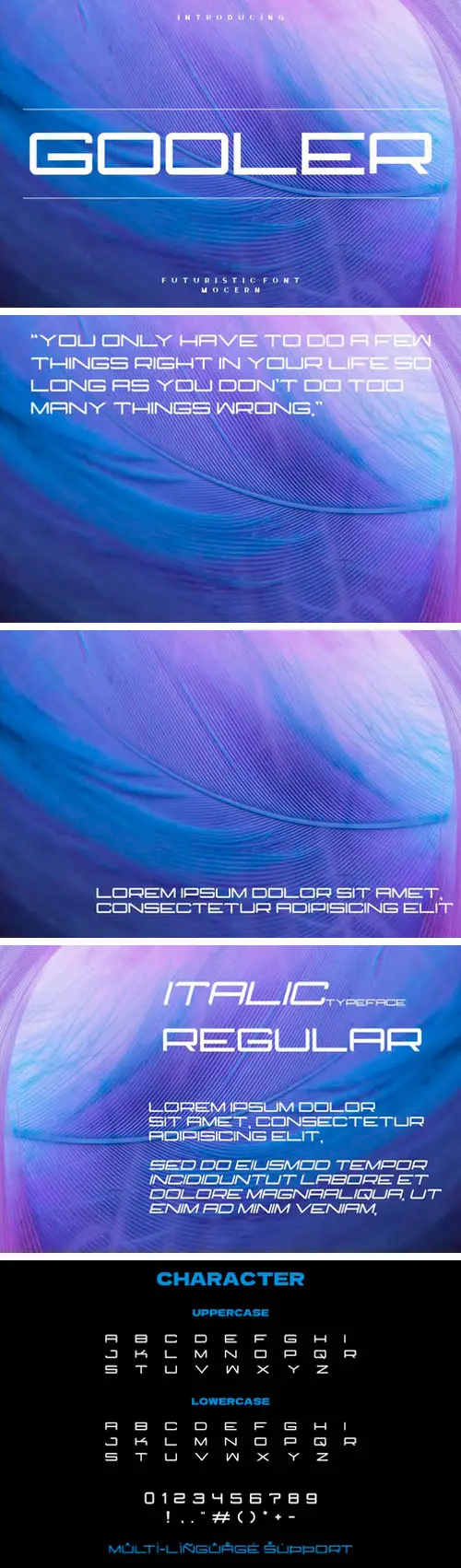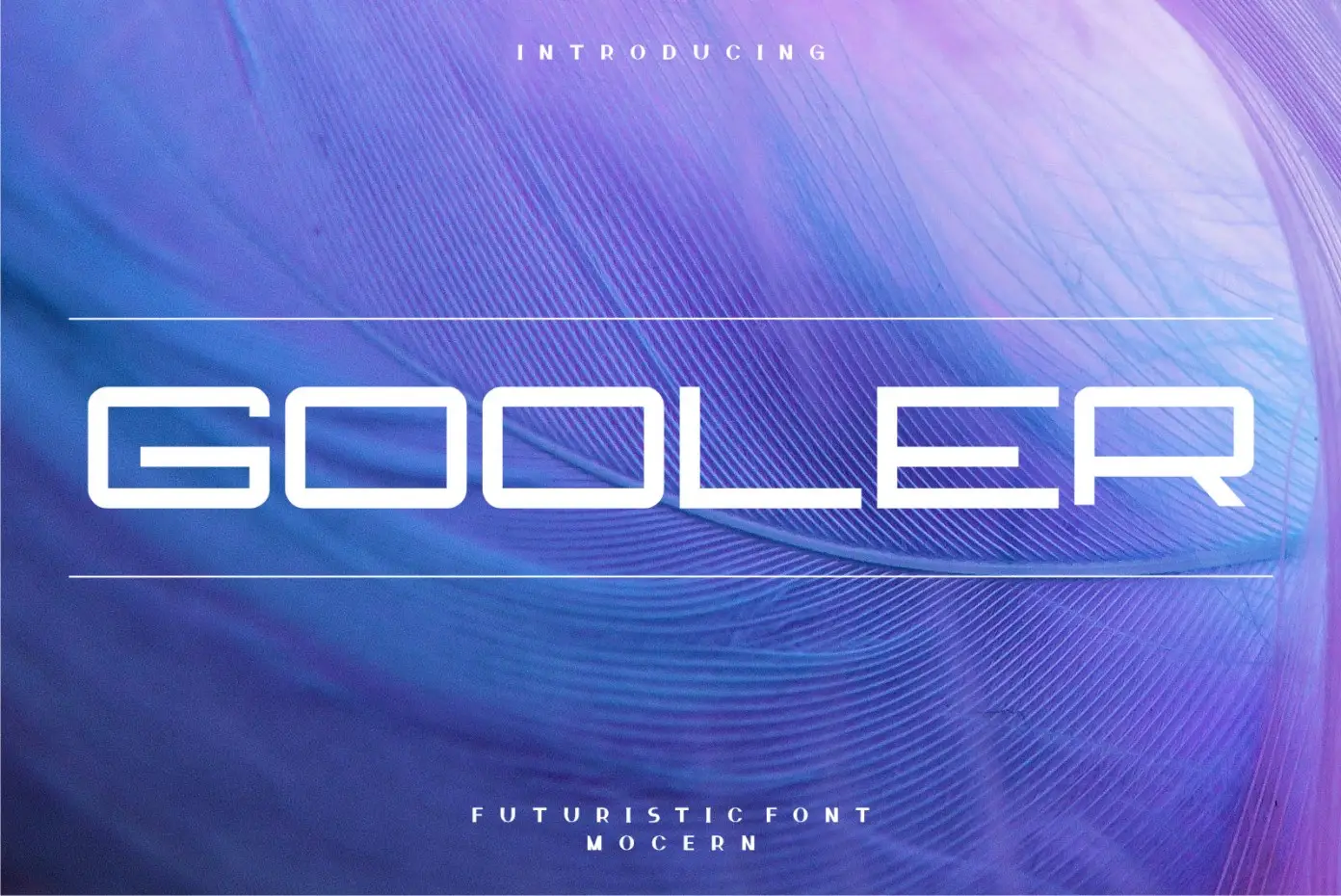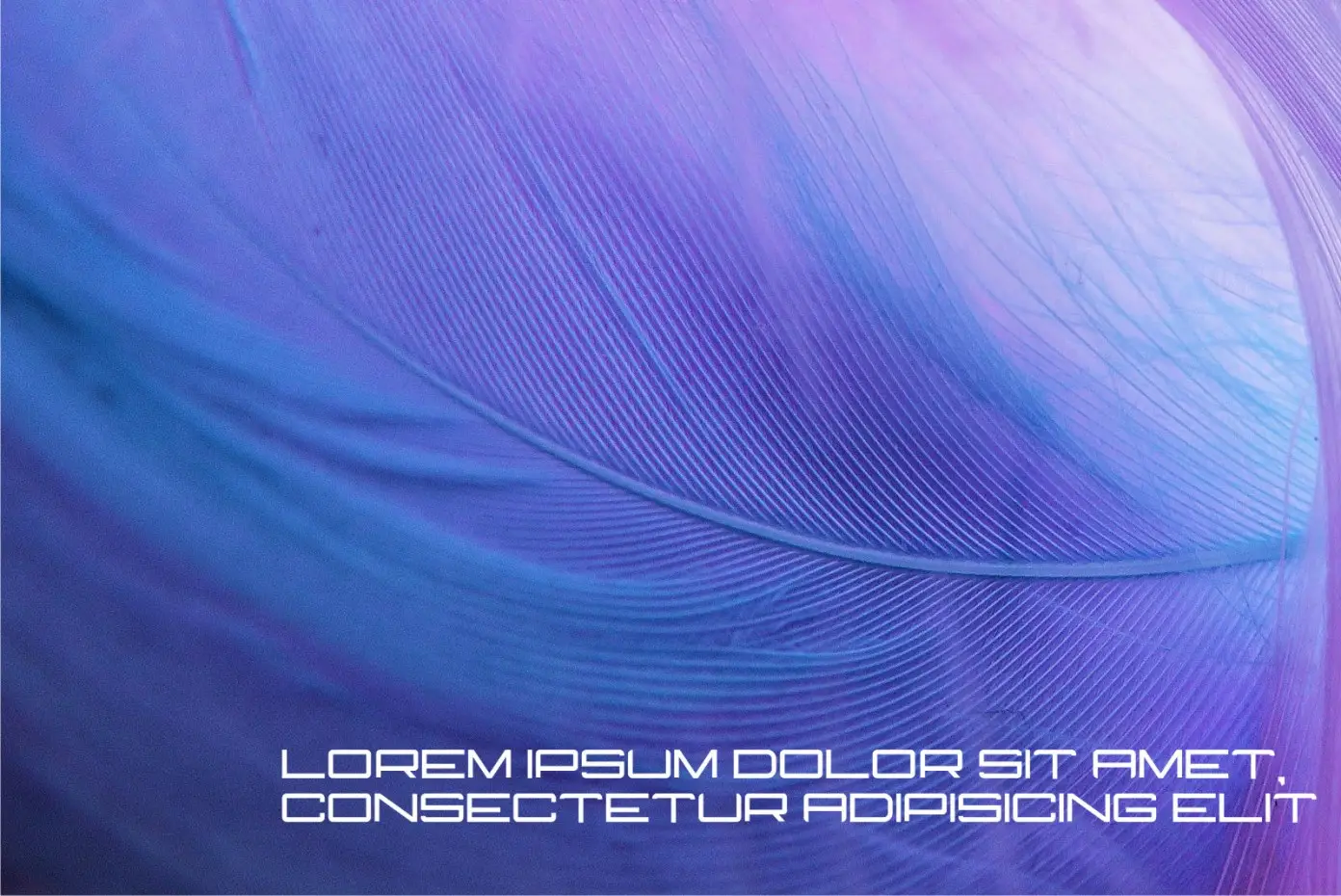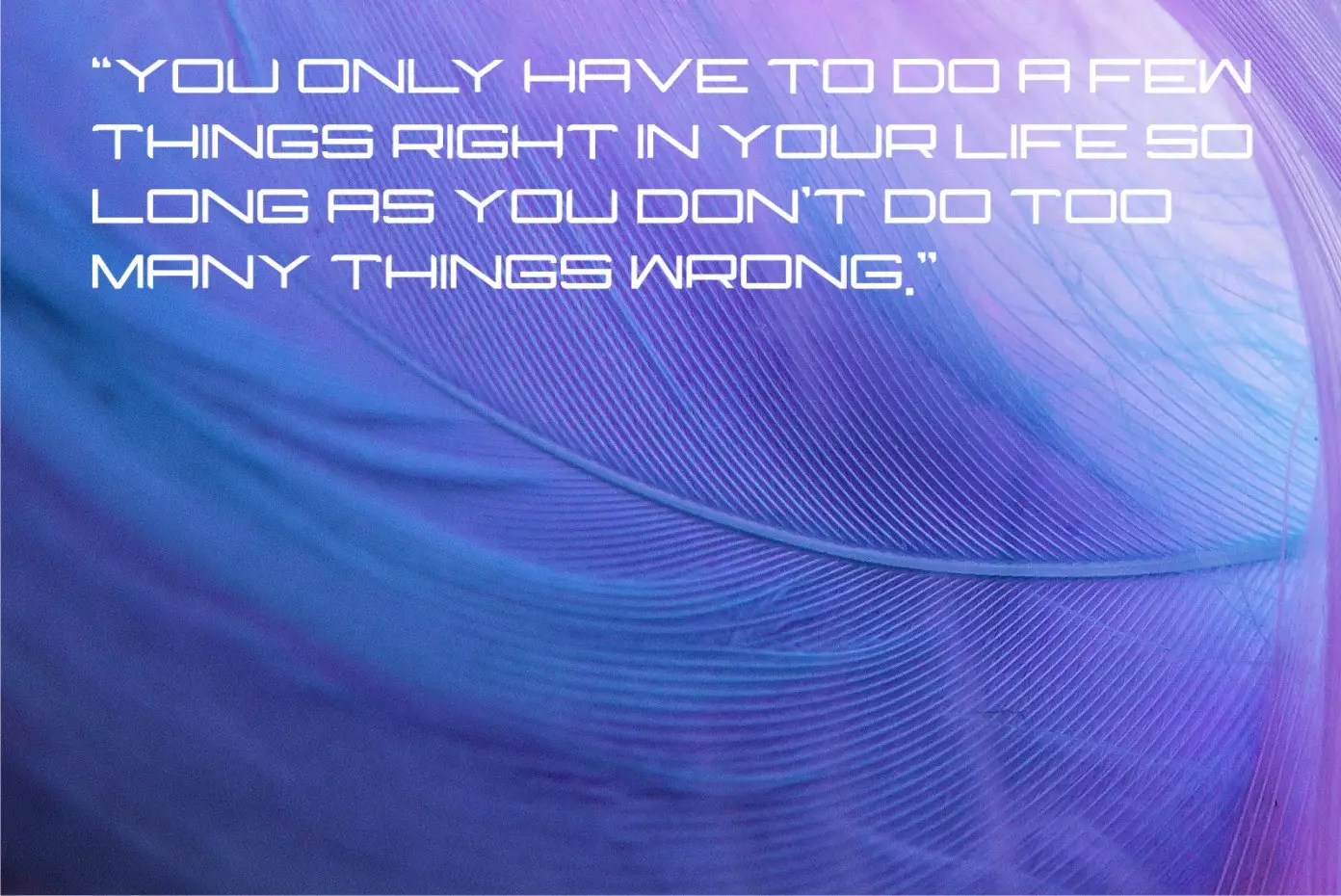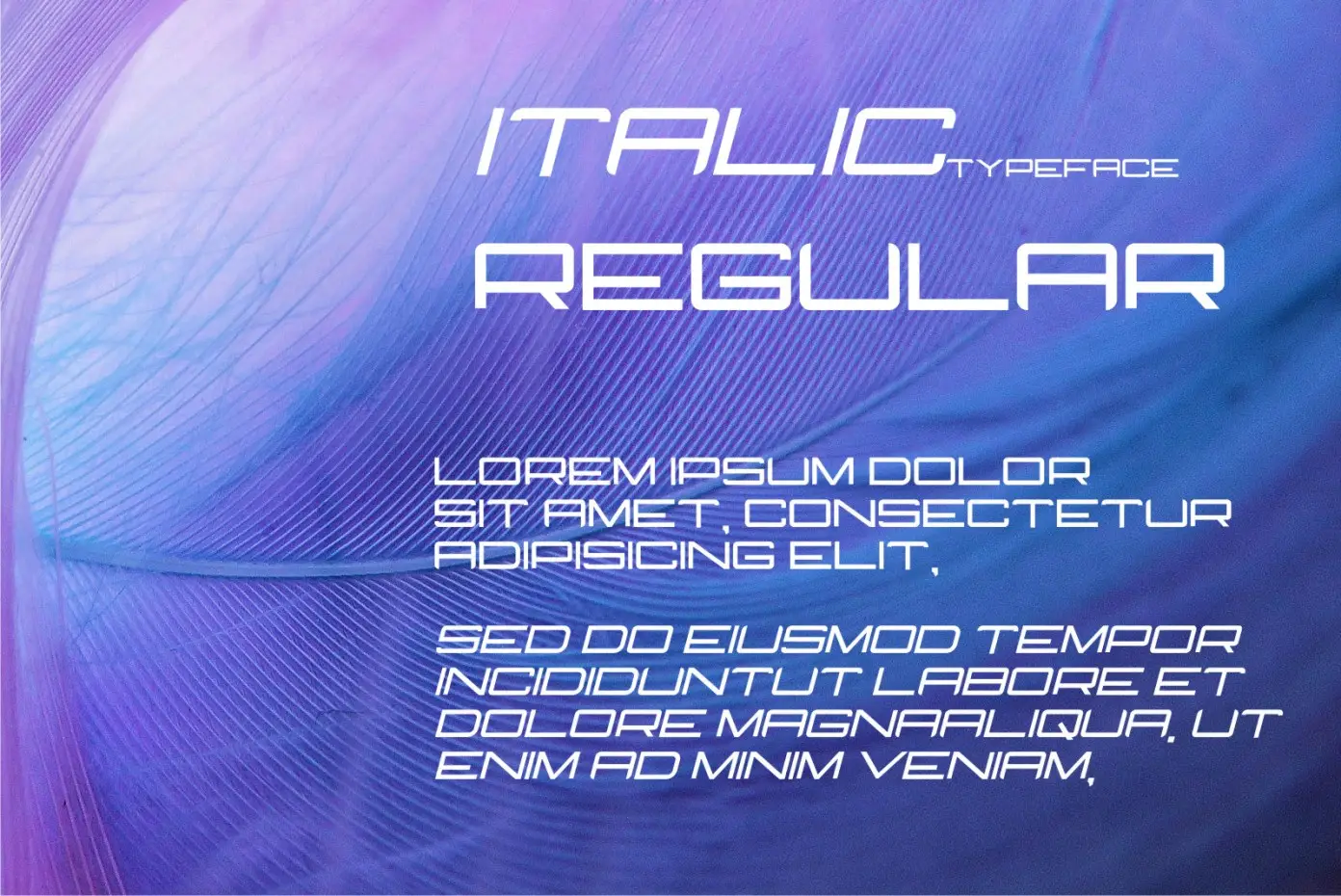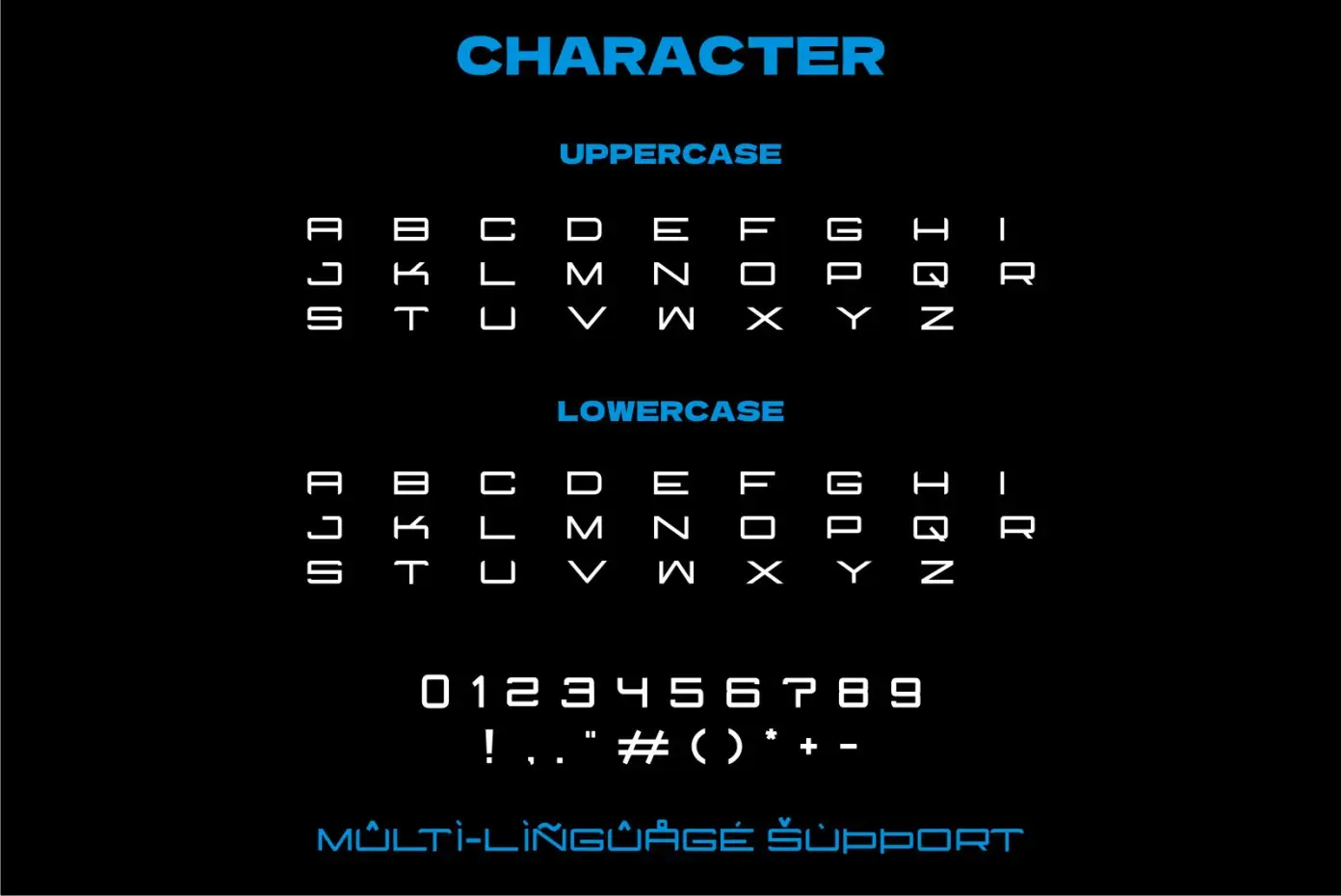
Gooler Display Font
The Gooler Display Font is a striking typeface designed to make a statement in any project. With its bold and modern aesthetic, this font is perfect for branding, logos, and eye-catching headlines.
• Unique display style
• Multiple weights available
• Uppercase and lowercase characters
• Style: Display
This font is ideal for use in digital and print media, including websites, posters, and promotional materials. Its distinctive style ensures that your message stands out.